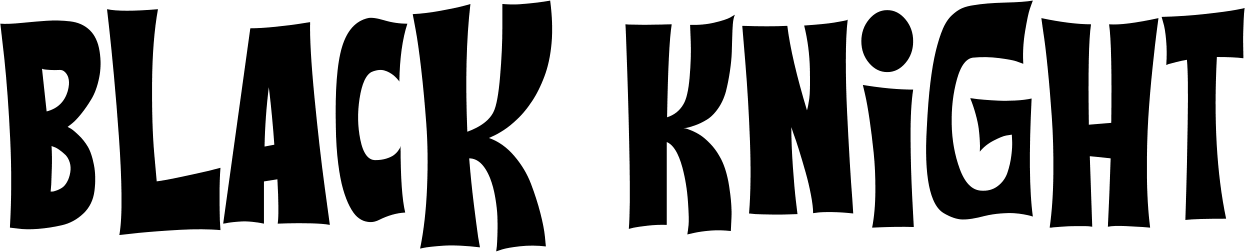
Black Knight Font
Are you looking for a creative to design your program titles? Stay with us to offer you the best possible option. Here is the Black Knight with a comic and playful design that can please any eye.
You can use this fancy bold font in any cartoon programs, titles, advertisements, animations, short stories, and more. Download this cute font right now and make your writing projects creative!